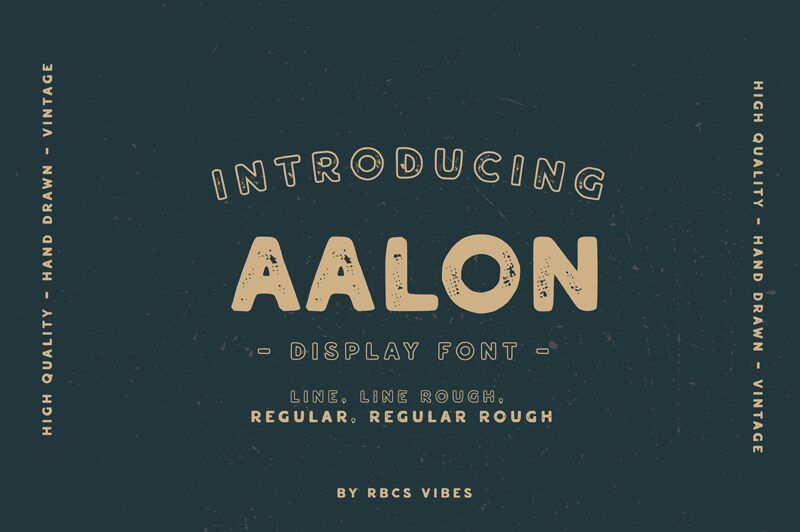
Aalon Line
Aalon Line font by RBCS Studio is a bold display typeface with an eroded, outlined style that presents a unique vintage texture. The rough yet structured appearance gives it an old-school charm, perfectly encapsulating retro vibes in any project. This edgy font combines creativity and legibility, suitable for adding character and intrigue to your designs.